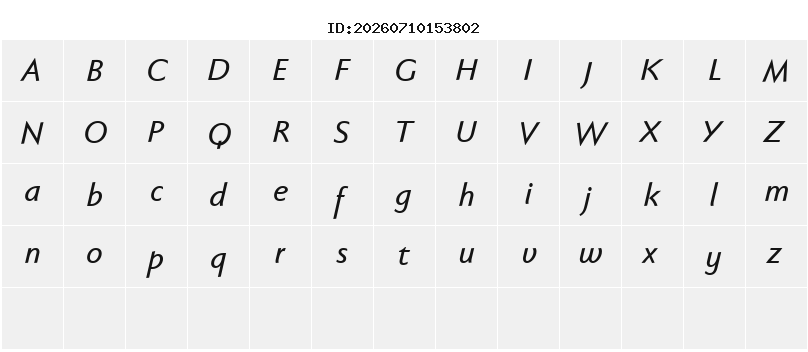
• Font Name: Faber Sans Pro reduced
• Font Style: 66 Kraeftig Kursiv
• Font ID: IngoZimmermanningoFontAugsburg: Faber Sans Pro 66 Kraeftig Kursiv: 2010
• Full Font Name: FaberSansPro-KraeftigKursiv
• PostScript Name: FaberSansPro-KraeftigKursiv
• Designer: Ingo Zimmermann
• Manufacturer: Ingo Zimmermann ingoFont Augsburg
About Faber Sans Pro reduced.ttf
Faber Sans Pro reduced.ttf is a modern, elegant sans-serif font designed for ultimate readability and visual harmony. Perfect for branding, headlines, web design, and print materials.